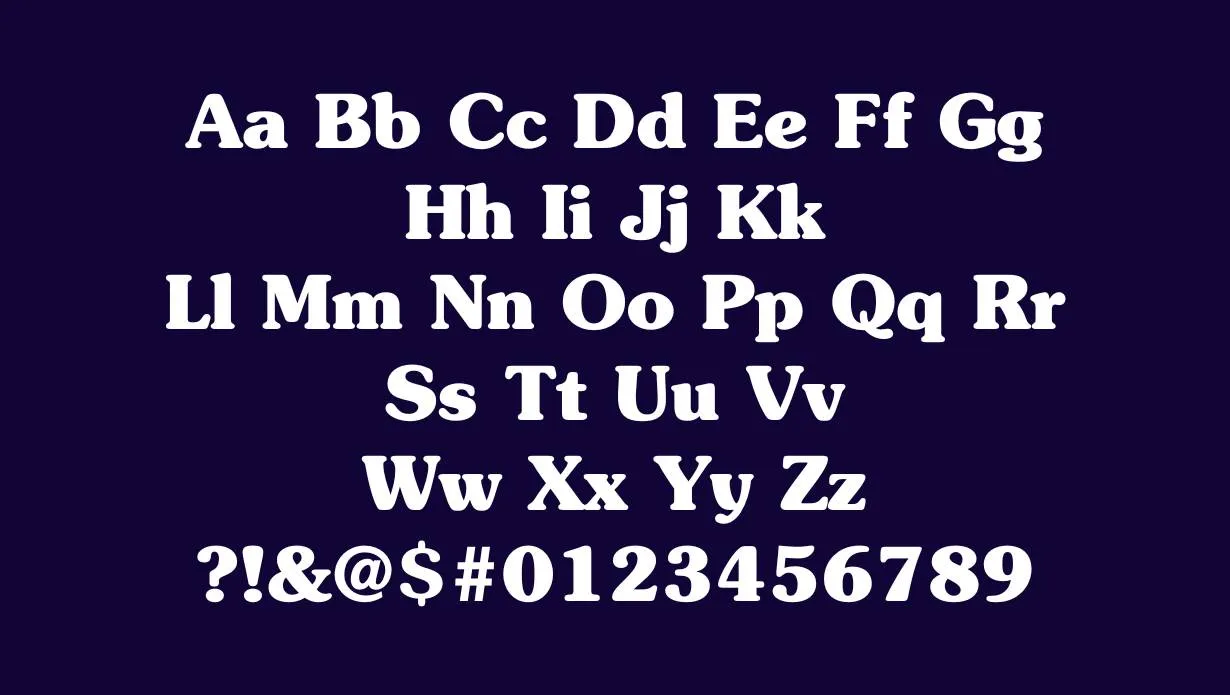
The ITC Souvenir font is like a gentle breeze for your words. It has a soft and rounded appearance, making your text look friendly and inviting. This font is perfect for projects that want to convey a warm and approachable vibe.
Whether you’re creating a greeting card or a friendly poster, the ITC Souvenir font adds a touch of warmth to your words, making them as comforting as a friendly smile.
| Name | ITC Souvenir Font |
| Designer | Morris Fuller Benton |